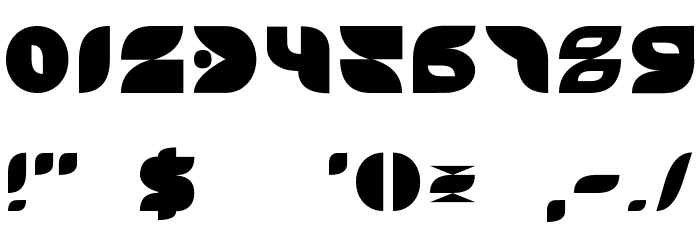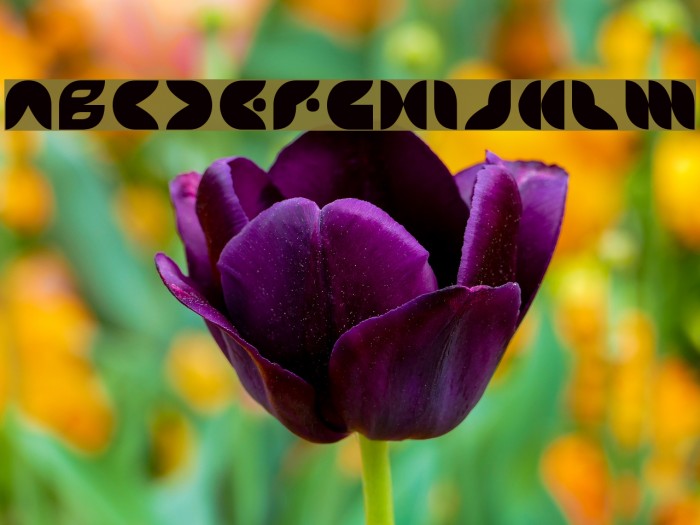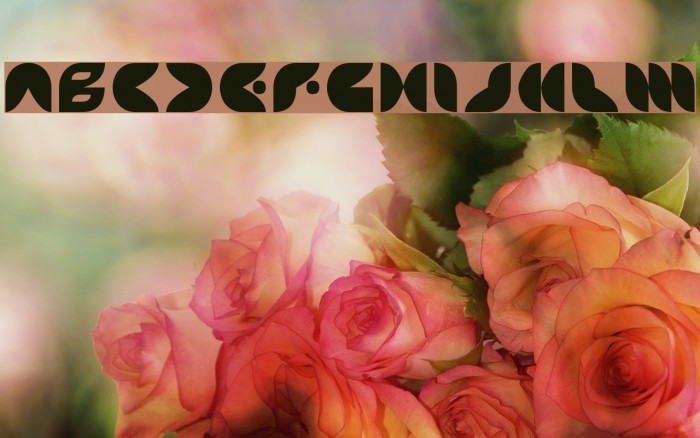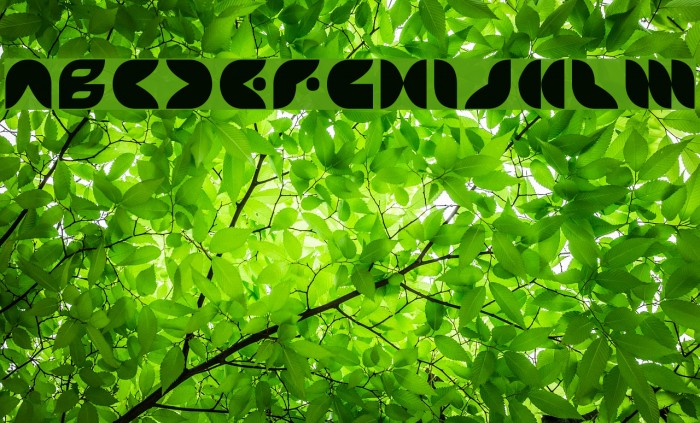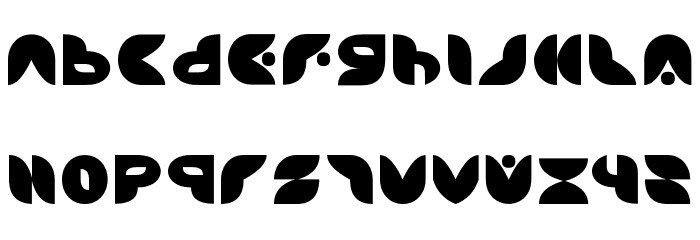
Puff Angel Font
Puff Angel Description
This font features a bold and playful design with a distinctly modern and artistic flair. Each character is crafted with a unique geometric style, incorporating rounded edges and abstract shapes that create a sense of movement and energy. The letters and numbers are highly stylized, with some characters appearing almost like abstract art pieces. The font's thick strokes and solid forms make it highly visible and impactful, ideal for grabbing attention. Its unique design elements make it stand out, offering a creative and unconventional look that is perfect for projects requiring a bold statement.